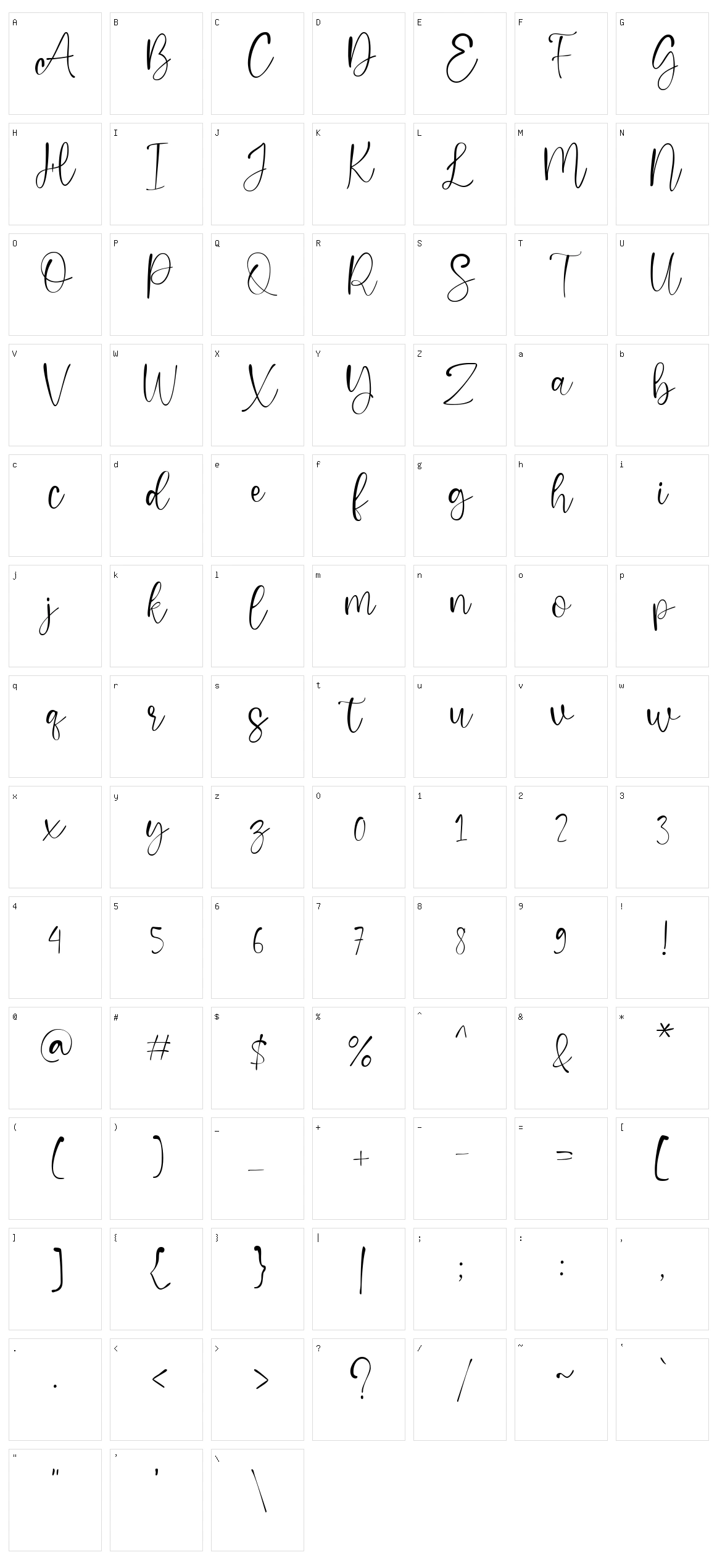
The free font Deradiy is carefully designed by Brithos Type, showcasing a thoughtful balance of creativity and usability and falls under the Script font style. When you download the ZIP file, it contains only 51.53 KB of font files, making it lightweight and quick to download. Please review the license details below to understand permitted usage and distribution rights. If license information is not available, we recommend using this font for personal projects only or contacting the author directly for commercial usage permissions.